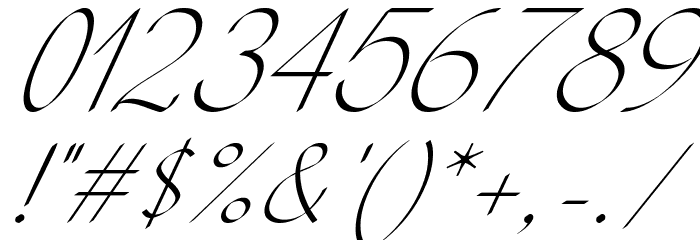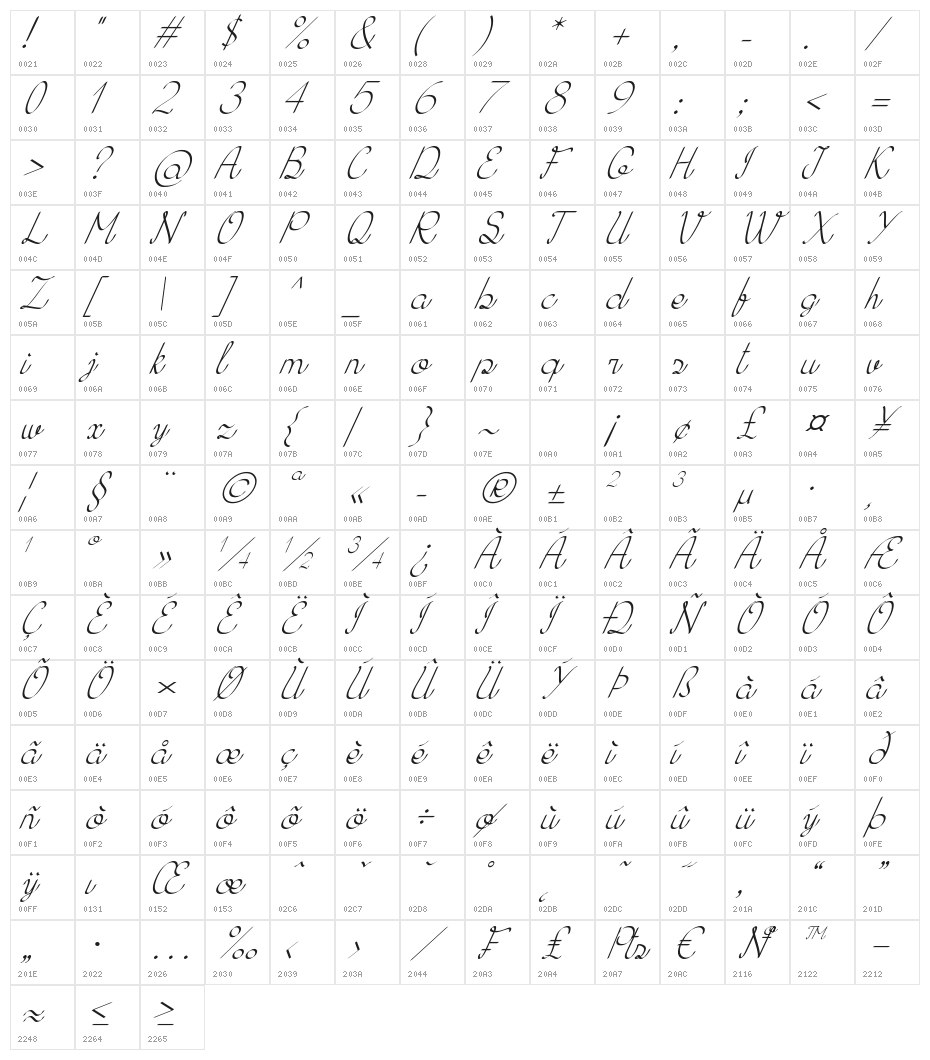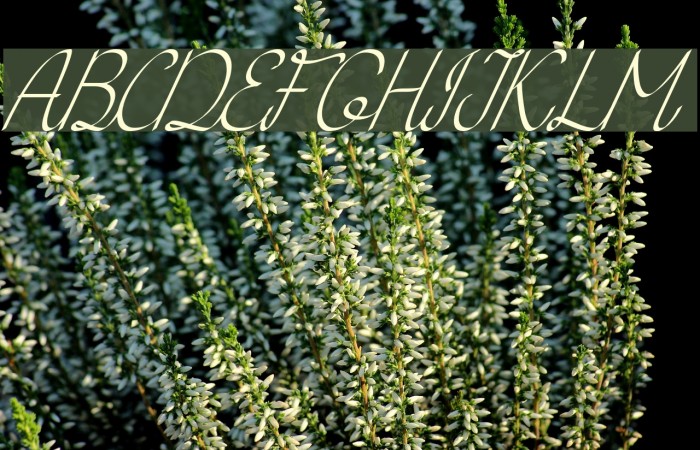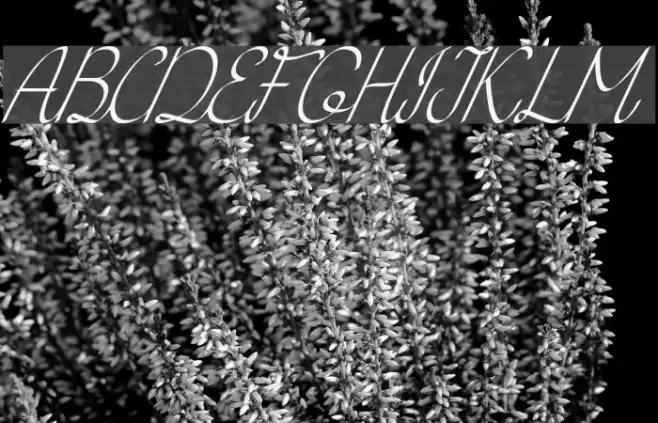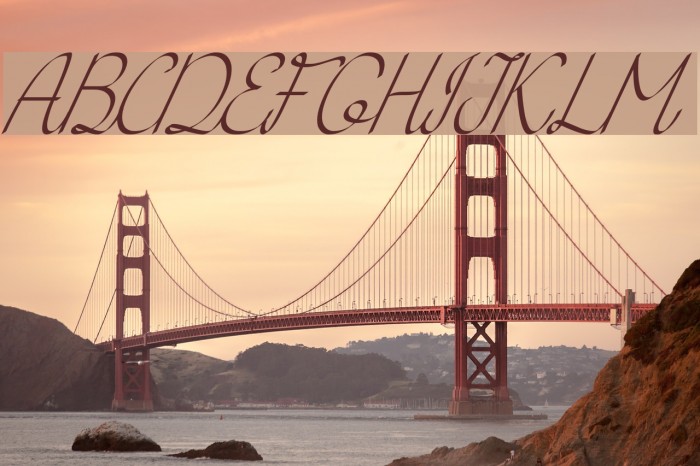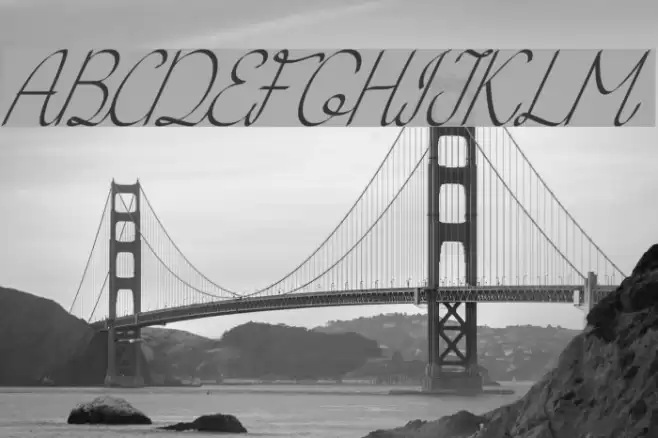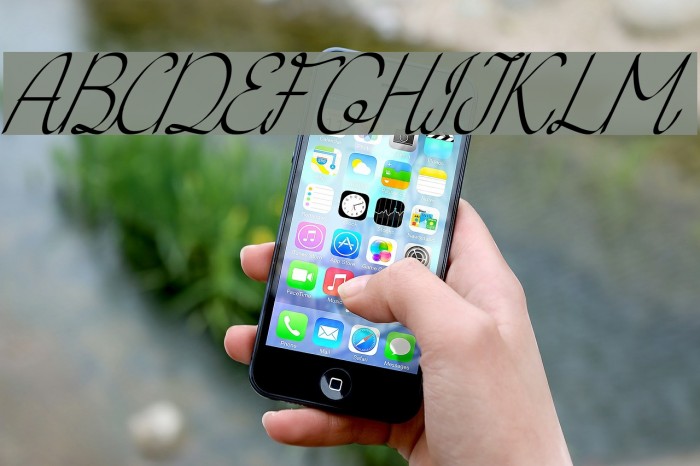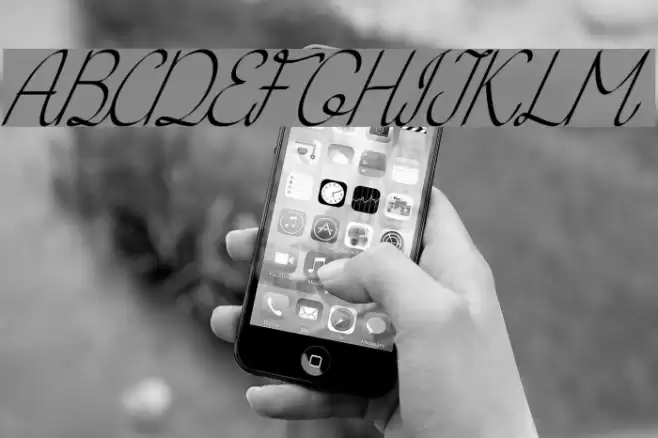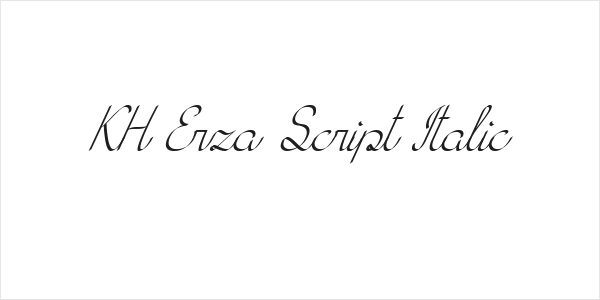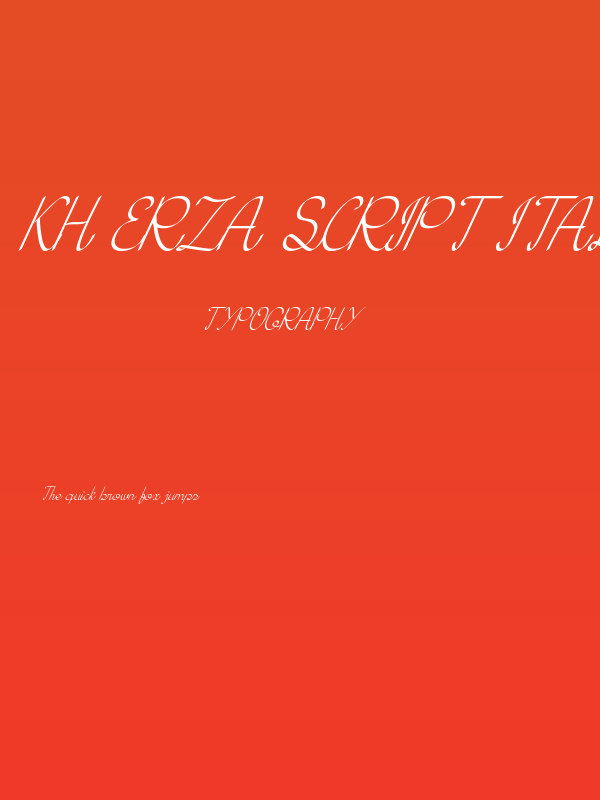
KH Erza Script Italic Font
KH Erza Script Italic Description
This elegant script font features a flowing, cursive style with a distinct italic slant, giving it a sense of motion and grace. The characters are intricately designed with smooth, continuous strokes that connect seamlessly, creating a harmonious and sophisticated appearance. The uppercase letters are slightly more ornate, while the lowercase letters maintain a consistent fluidity. The numerals and special characters are crafted to match the overall aesthetic, ensuring a cohesive look across all text. This font exudes a sense of elegance and refinement, making it ideal for projects that require a touch of sophistication.
| Overall Style | Elegant, Sophisticated |
| Proposed Projects | Ideal for wedding invitations, elegant branding, greeting cards, and upscale packaging. |